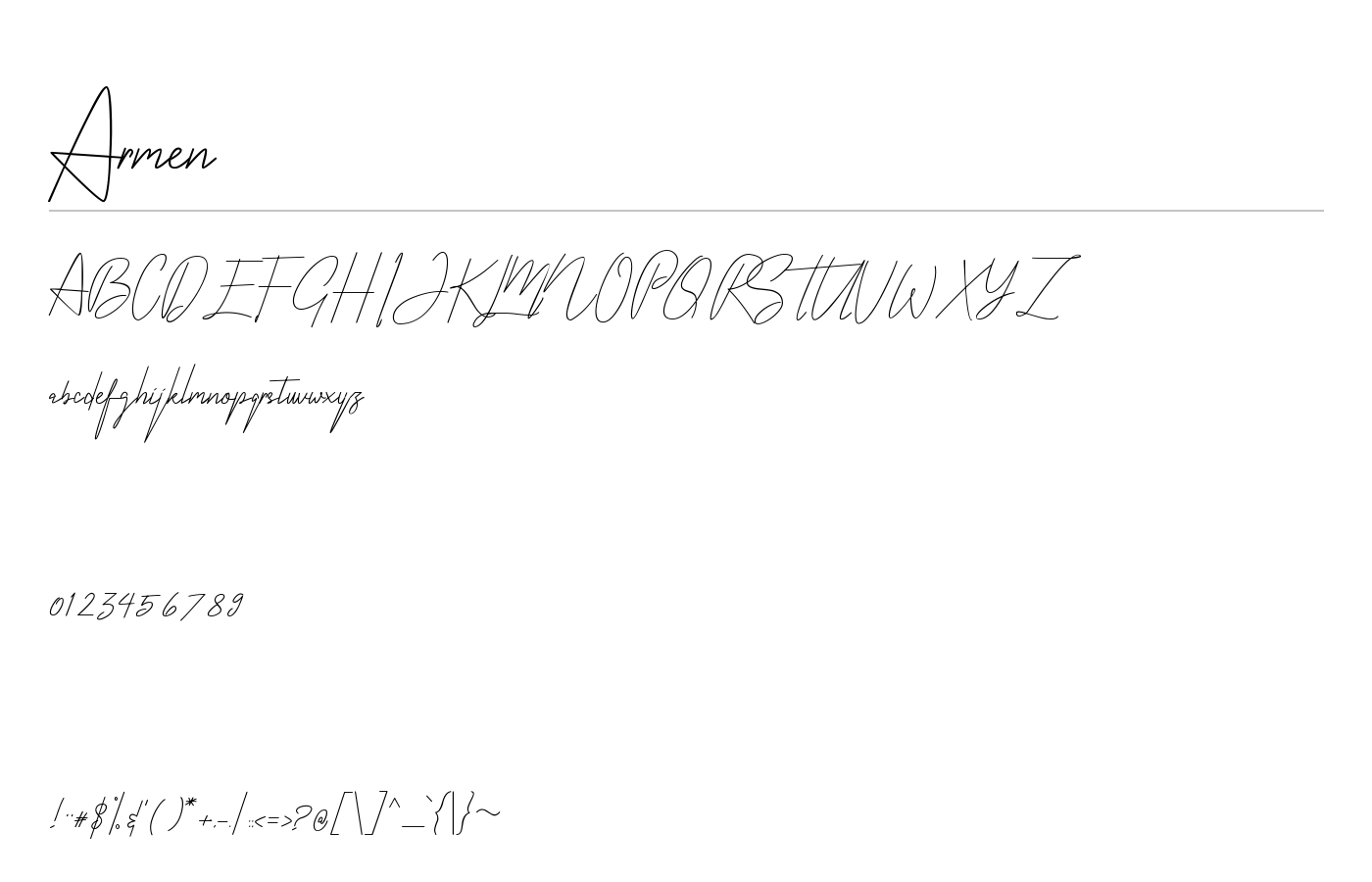
Armen Font is a delicate, elegant script typeface characterized by thin, flowing strokes and a handwritten feel. Its tall, narrow letterforms and fine lines create a sense of sophistication and grace, making it ideal for fashion branding, invitations, and stylish editorial designs where a refined, personal touch is desired. This font works best in large sizes for headlines or logos, adding a charming, artistic flair to any project.
Armen Font